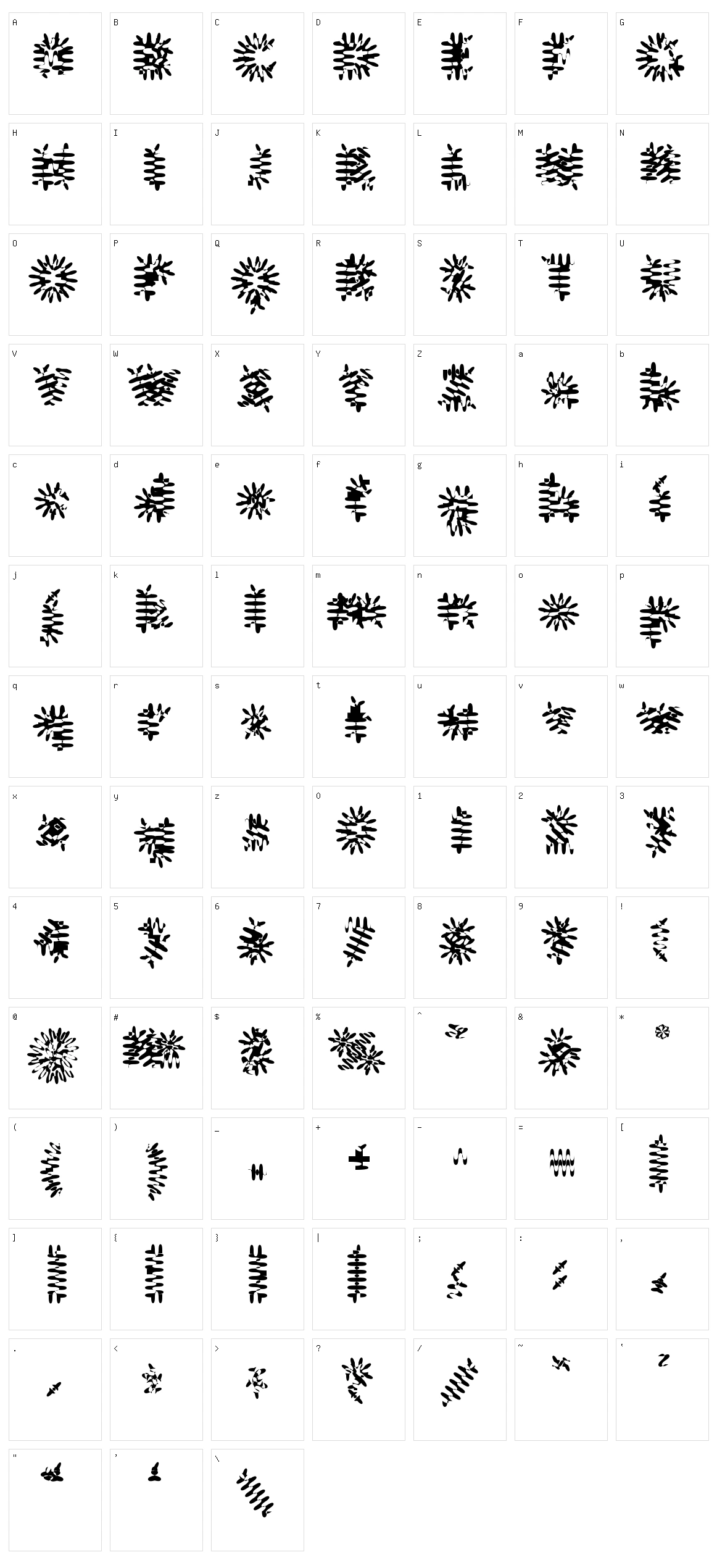
Gilgongo started as a funky art deco serif face, but along the months it underwent a lot of changes. Those changes happened mostly on whims dependent on moods, music, and temperature. Late last year I sent a set of uppercase letters and figures to Graham, figuring that he would most likely hit the nail right on the head with lowercase. Graham, being the brave accommodator he is, sent it back a couple day later with the lowercase all done, except for the k and z if I recall correctly. After a bit of cleaning up, the idea of the font had pretty much manifested itself, so I dropped it on the back burner to avail time for other stuff.
Last January I changed the stroke width on everything. This was probably due to the strange pop music I was listening to. I was fresh back from California, a state which makes the mundane seem interesting for some reason. In February I for some reason was partial to Mexican food throughout the whole month, so the idea for the Doro style started shaping. Still in February, I was getting many requests for a small cap font of Mary Jane, so that reflected itself on Gilgongo as well. Some time in March, while still finishing ChizzMM, I thought that it may actually work out alright if I were to add a chizzled style to Gilgongo, so the Sledge style was born. Also in March, surprisingly enough I received 2 emails asking about Gilgongo. The first email asked if the word Gilgongo had any African roots, and the second email was by someone who was just wondering if I'd ever made any fonts for David Carson. The Carson bit was probably what triggered the Mutombo style, and the African question was what named it. Around the end of April the weather in Toronto was becoming so nice and warm. Live blues shows were becoming pretty propular, as they usually are during summers around here, and so I decided to trim all of Gilgongo's serifs. The Tiki style is basically an extension of the Doro font, called for by the dedication of this font. Another one for Danny, who somehow managed to get away with shrinking the pinball machine to about 2% of its size around xmas. Tragedy rules, my friend!
The word Gilgongo is taken from a Kilgore Trout story about a planet where the ruling inetlligence was trying to cut down the number of species that existed. Whenever a new species was wiped out, the person who was recorded as killing the last member of the species was honoured with a big party. During that party, framed photos of the wiped-out species were distributed as mementos. On the back of each souvenir was this solitary exclamation: GILGONGO! In that planet's language, gilgongo meant extinct.